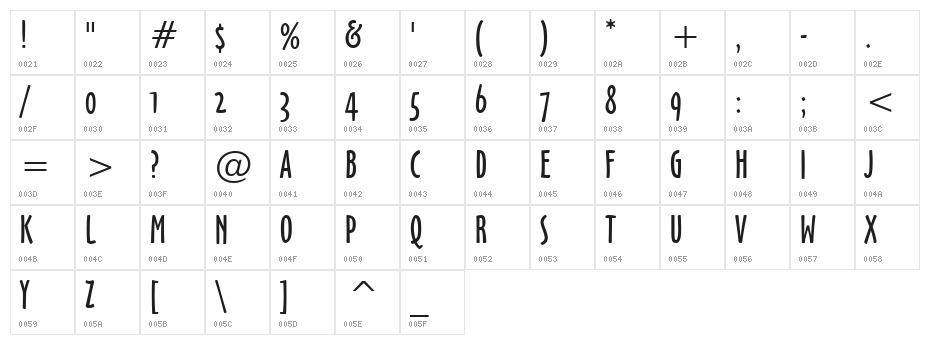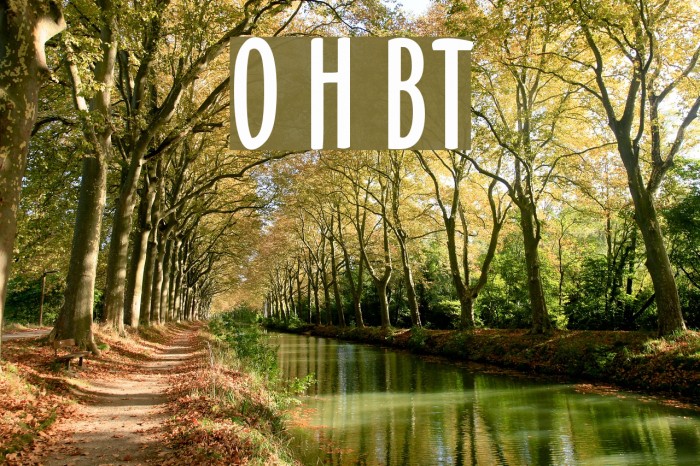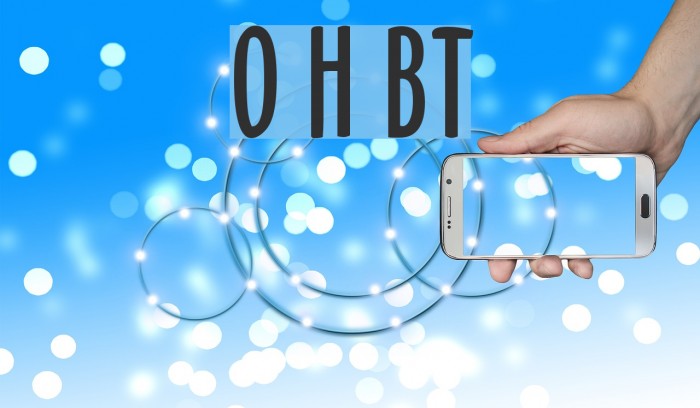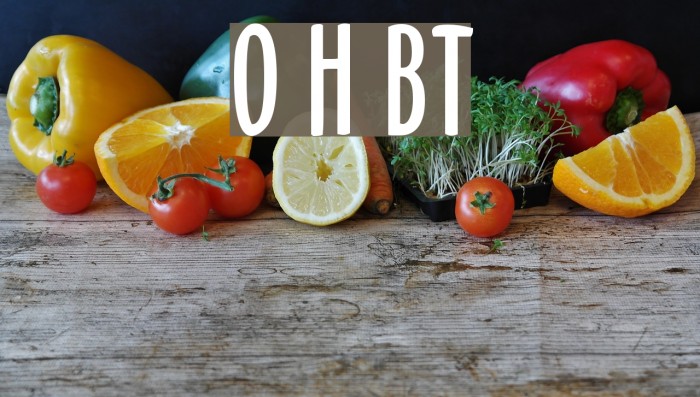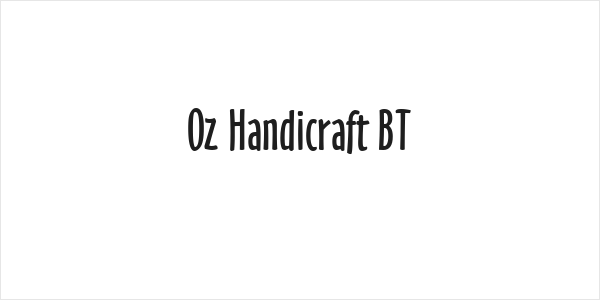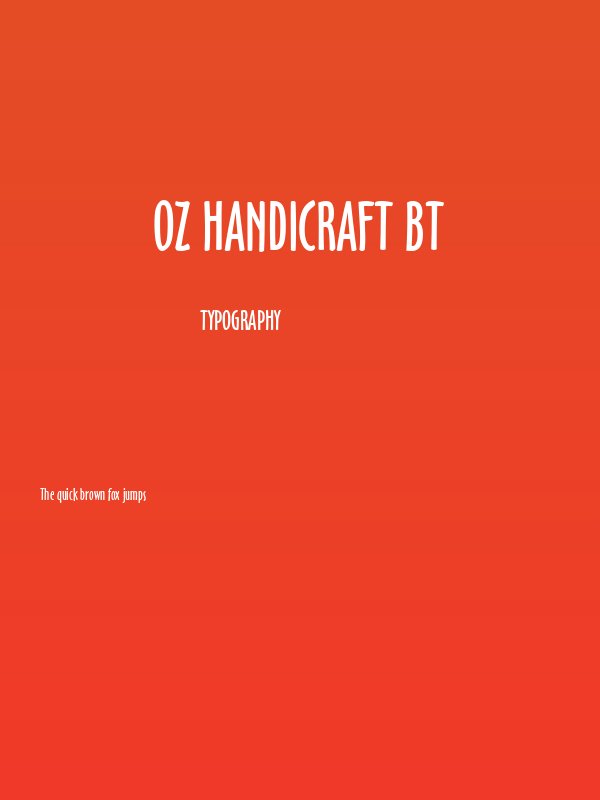
Oz Handicraft BT Font
Oz Handicraft BT Description
This font features a playful and handcrafted style, characterized by its tall, narrow letterforms and slightly irregular strokes that give it a unique, artistic flair. The uppercase and lowercase letters maintain a consistent height, creating a harmonious look. The numbers and special characters follow the same design principles, ensuring a cohesive appearance across all glyphs. The font's organic feel is enhanced by its subtle variations in stroke width, adding to its charm and versatility. It's ideal for projects that require a touch of creativity and individuality.
| Proposed Projects | Ideal for creative projects such as posters, invitations, greeting cards, and branding materials that seek a unique and artistic touch. |